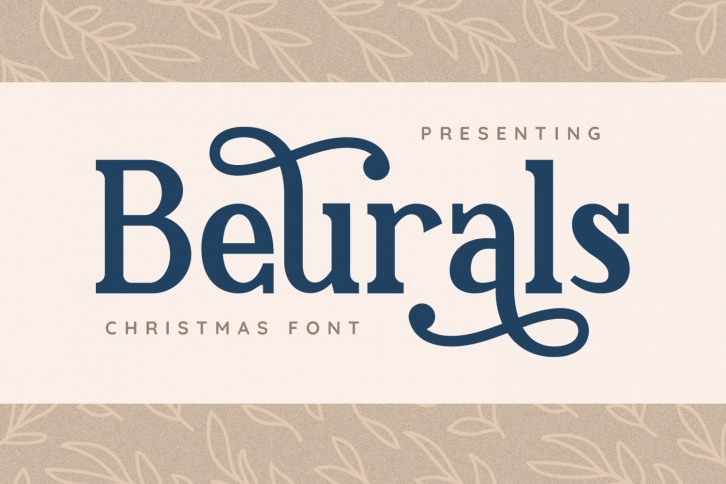
Beurals is a trendy and unique font with an authentic style. It was designed by Runsell and it's a great choice for creative people who need such a font. It was released on December 14, 2021 and the file size is 16.1 MB. Beurals will add an organic vibe to any design idea!